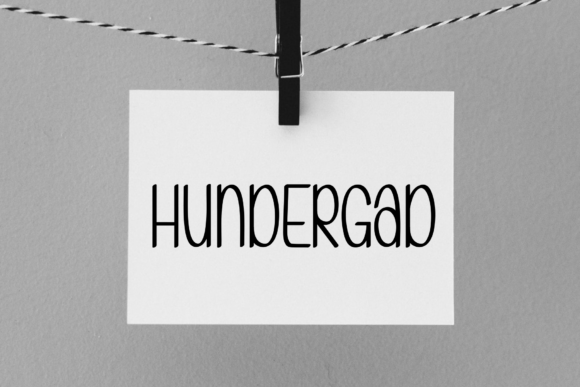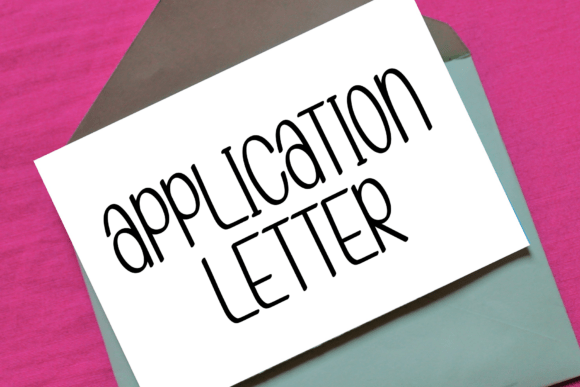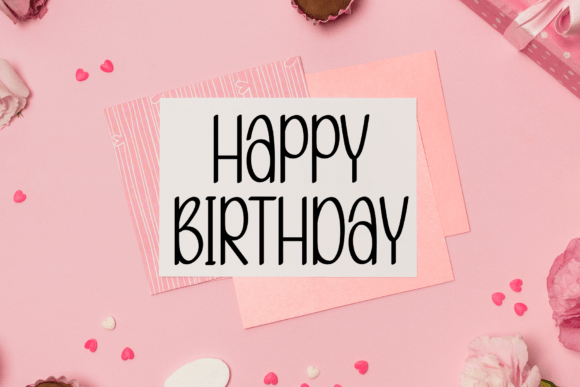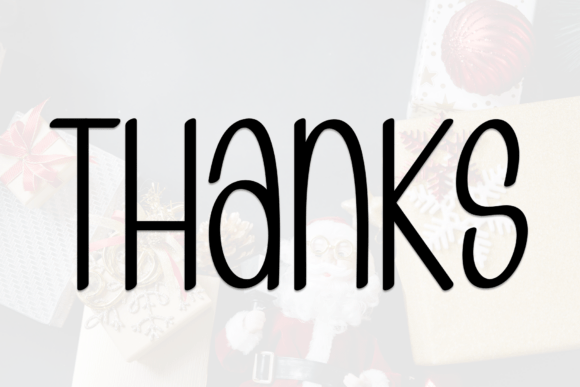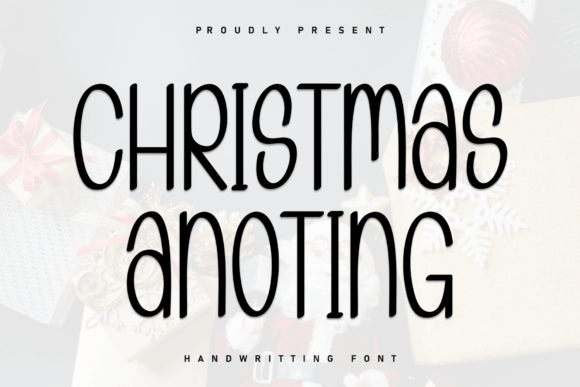
Introducing Christmas Anoting Font: The Perfect Blend of Luxury and Casual
Are you looking for a font that can add a touch of elegance and sophistication to your designs while still maintaining a casual and relaxed feel? Look no further than Christmas Anoting Font. This beautiful handwritten font is designed to look like it was drawn with a marker, giving it a unique and sporty vibe that’s perfect for a wide range of design projects.
What is Christmas Anoting Font?
Christmas Anoting Font is a carefully crafted handwritten font that mimics the look of marker-drawn letters. Its relaxed and sporty feel makes it an excellent choice for designers and crafters who want to add a personal touch to their work. Whether you’re creating branding materials, logos, wedding supplies, greeting cards, or marketing promotions, this font is sure to impress.
Key Features of Christmas Anoting Font
- Handwritten with a marker feel: Christmas Anoting Font has a unique, hand-drawn look that gives it a personal and casual feel.
- Relaxed and sporty vibe: The font’s design makes it perfect for projects that require a laid-back yet stylish approach.
- Luxurious and elegant: Despite its casual feel, Christmas Anoting Font exudes luxury and sophistication, making it suitable for high-end designs.
- Versatile: This font can be used for a wide range of design projects, from branding and logos to wedding supplies and marketing promotions.
Use Cases for Christmas Anoting Font
Christmas Anoting Font is an incredibly versatile font that can be used in various design projects. Here are some of the most popular use cases:
- Branding and Logos: Create a unique and memorable brand identity with Christmas Anoting Font. Its luxurious and elegant feel makes it perfect for high-end brands.
- Wedding Supplies: Add a touch of sophistication and romance to your wedding designs, such as invitations, programs, and decorations.
- Greeting Cards: Create beautiful and heartfelt greeting cards for special occasions, such as Christmas, birthdays, and anniversaries.
- Fashion and Lookbooks: Use Christmas Anoting Font to add a stylish and luxurious touch to your fashion designs, lookbooks, and marketing materials.
- Marketing Promotions: Create eye-catching and effective marketing materials, such as brochures, flyers, and social media graphics, with Christmas Anoting Font.
Why Choose Christmas Anoting Font?
With so many fonts available, why choose Christmas Anoting Font? Here are a few reasons why designers and crafters love this font:
- Unique and distinctive: Christmas Anoting Font has a one-of-a-kind design that sets it apart from other fonts.
- Elegant and sophisticated: The font’s luxurious feel makes it perfect for high-end designs and projects that require a touch of sophistication.
- Casual and relaxed: Despite its elegance, Christmas Anoting Font still has a casual and relaxed feel that’s perfect for designs that require a personal touch.
- Easy to read: The font is clear and easy to read, making it perfect for body text and headings.
Tips for Using Christmas Anoting Font
To get the most out of Christmas Anoting Font, here are a few tips to keep in mind:
- Use it sparingly: While Christmas Anoting Font is beautiful, it’s best to use it sparingly to avoid overwhelming your design.
- Pair it with other fonts: Experiment with pairing Christmas Anoting Font with other fonts to create a unique and visually appealing design.
- Adjust the size and color: Play around with different sizes and colors to find the perfect combination for your design.
Christmas Anoting Font is a versatile and beautiful handwritten font that’s perfect for designers and crafters who want to add a touch of luxury and elegance to their designs. With its unique marker-drawn feel, relaxed and sporty vibe, and luxurious and elegant aesthetic, this font is sure to impress. Whether you’re creating branding materials, logos, wedding supplies, or marketing promotions, Christmas Anoting Font is an excellent choice.